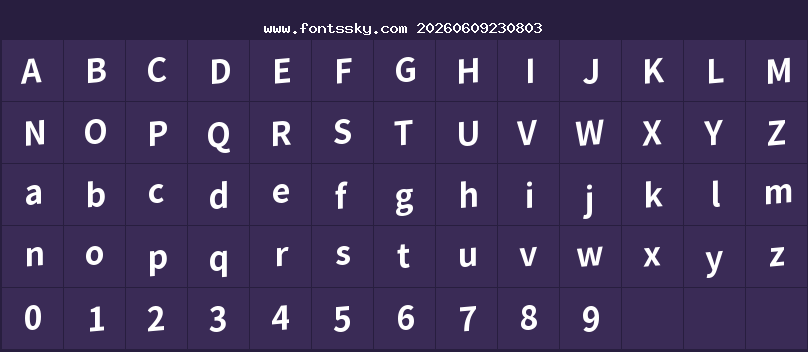
江城律动黑 Preview
• Font Name: 江城律动黑
• Font ID: JiangChengLvDongHei:Version 1.0
• Full Font Name: 江城律动黑
• PostScript Name: JiangChengLvDongHei
• Character Count: 44808
• Designer: 刘鹏
• Description: Dr. Ken Lunde (project architect, glyph set definition & overall production); Masataka HATTORI 服部正貴 (production & ideograph elements)
About 江城律动黑.ttf
江城律动黑.ttf is a modern, elegant sans-serif font designed for ultimate readability and visual harmony. Perfect for branding, headlines, web design, and print materials.